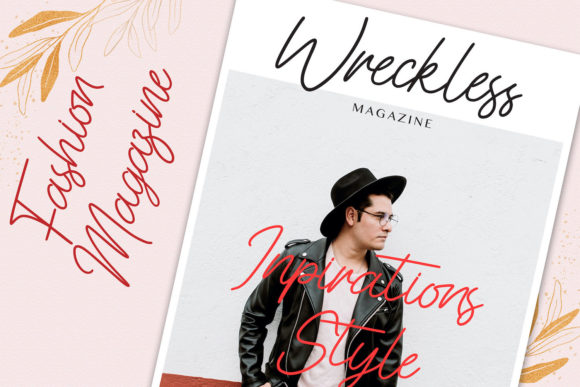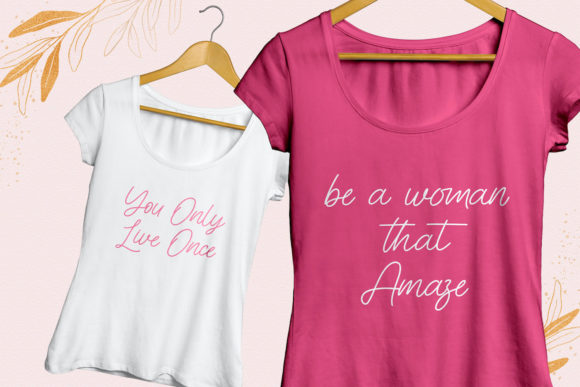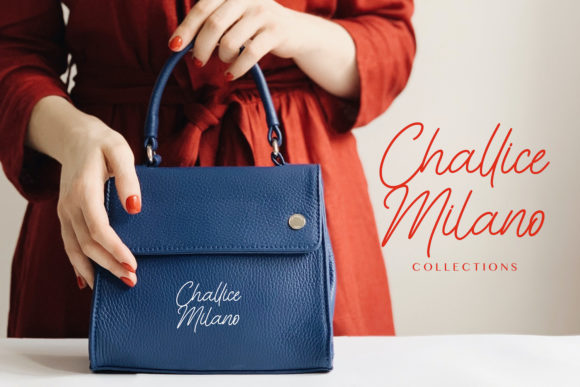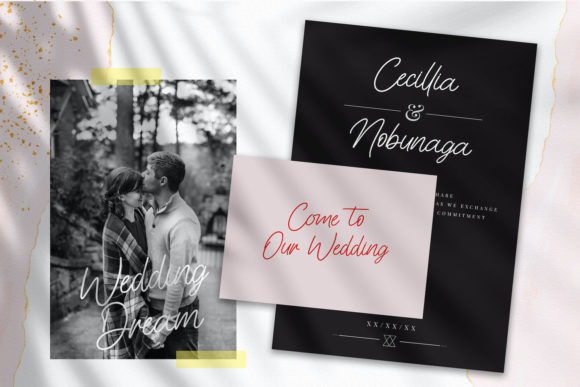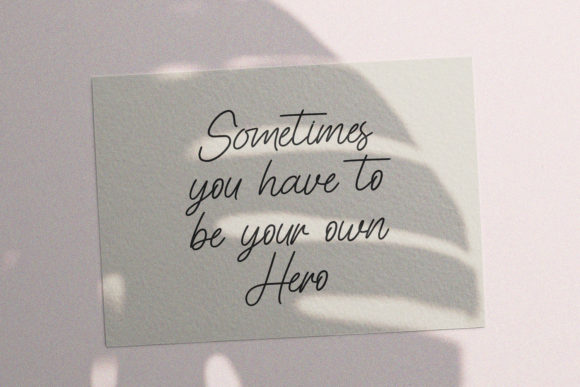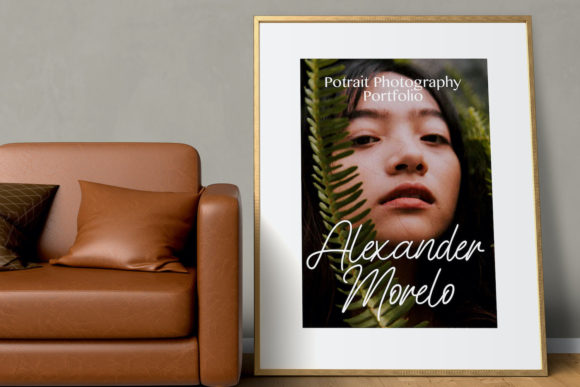
Introduction to Cinthya Amy Font
As designers, we’ve all been there – staring at a blank canvas, waiting for inspiration to strike. For me, it’s often the simplest elements that spark the most creativity. A beautiful typography can instantly elevate a design, giving it a unique personality that sets it apart from the rest. And that’s exactly what I’m excited to share with you today – the Cinthya Amy Font, a stunning light handwritten font that’s about to become your new go-to design resource.
This high-quality font is more than just a pretty face – it’s a game-changer for any creative project. With its luxurious feel and transparent background, you can add a touch of sophistication to even the most straightforward designs. Whether you’re working on a branding project, a digital asset, or a web design, Cinthya Amy Font is sure to bring a level of refinement and elegance that will make your work stand out.
Key Features of Cinthya Amy Font
- Unique, modern font with a transparent background, ideal for digital and print applications.
- Supports Latin and Cyrillic character sets, making it a versatile choice for multilingual projects.
- Available in various sizes and resolutions, including 300 DPI for high-quality printing.
- Features a sleek, clean design with a subtle flair, perfect for headings, titles, and body text.
Honest Review: Cinthya Amy Font
I recently had the chance to work with the Cinthya Amy Font, and I must say it’s been a delight. This high-quality design resource has been a game-changer for my creative projects.
- ✨ The font is incredibly versatile, making it perfect for a wide range of creative projects, from logos to brochures.
- ✨ The transparent background allows for seamless integration into any design, giving me complete control over the layout.
- ⚠️ The font may not be suitable for extremely small text sizes, as the characters can become difficult to read.
Overall, I’m thoroughly impressed with the Cinthya Amy Font. Its high quality and versatility make it an excellent addition to any designer’s toolkit. If you’re looking for a reliable design resource, I highly recommend giving it a try.
Cinthya Amy Font
Cinthya Amy Font is a high-quality design resource ideal for creative projects. With its elegant and sophisticated style, it’s perfect for adding a touch of sophistication to your designs.
For the best results, use Cinthya Amy Font on a transparent background to really make it stand out. You can also experiment with different font sizes and styles to create a unique look.
Cinthya Amy Font is perfect for creating elegant and sophisticated designs, such as:
- Menus and pricing lists